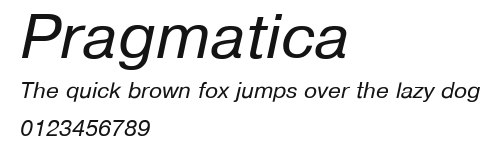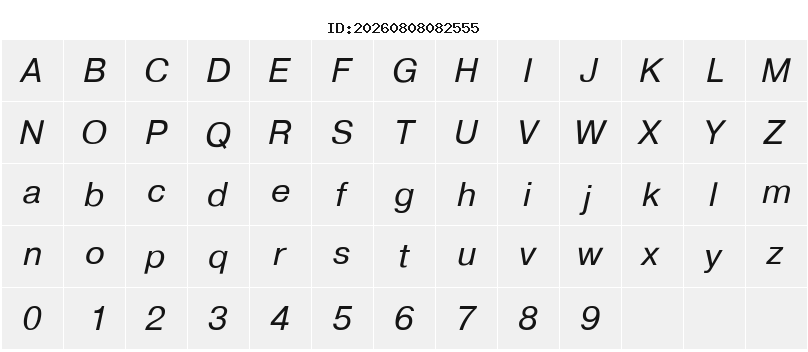
• Font Name: Pragmatica
• Full Font Name: Pragmatica Italic
About Pragmatica.ttf
Pragmatica.ttf is a modern, elegant sans-serif font designed for ultimate readability and visual harmony. Perfect for branding, headlines, web design, and print materials.